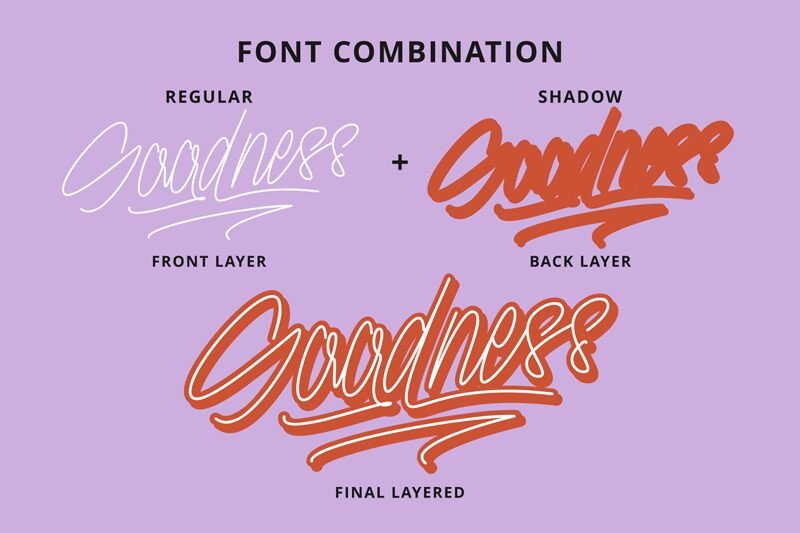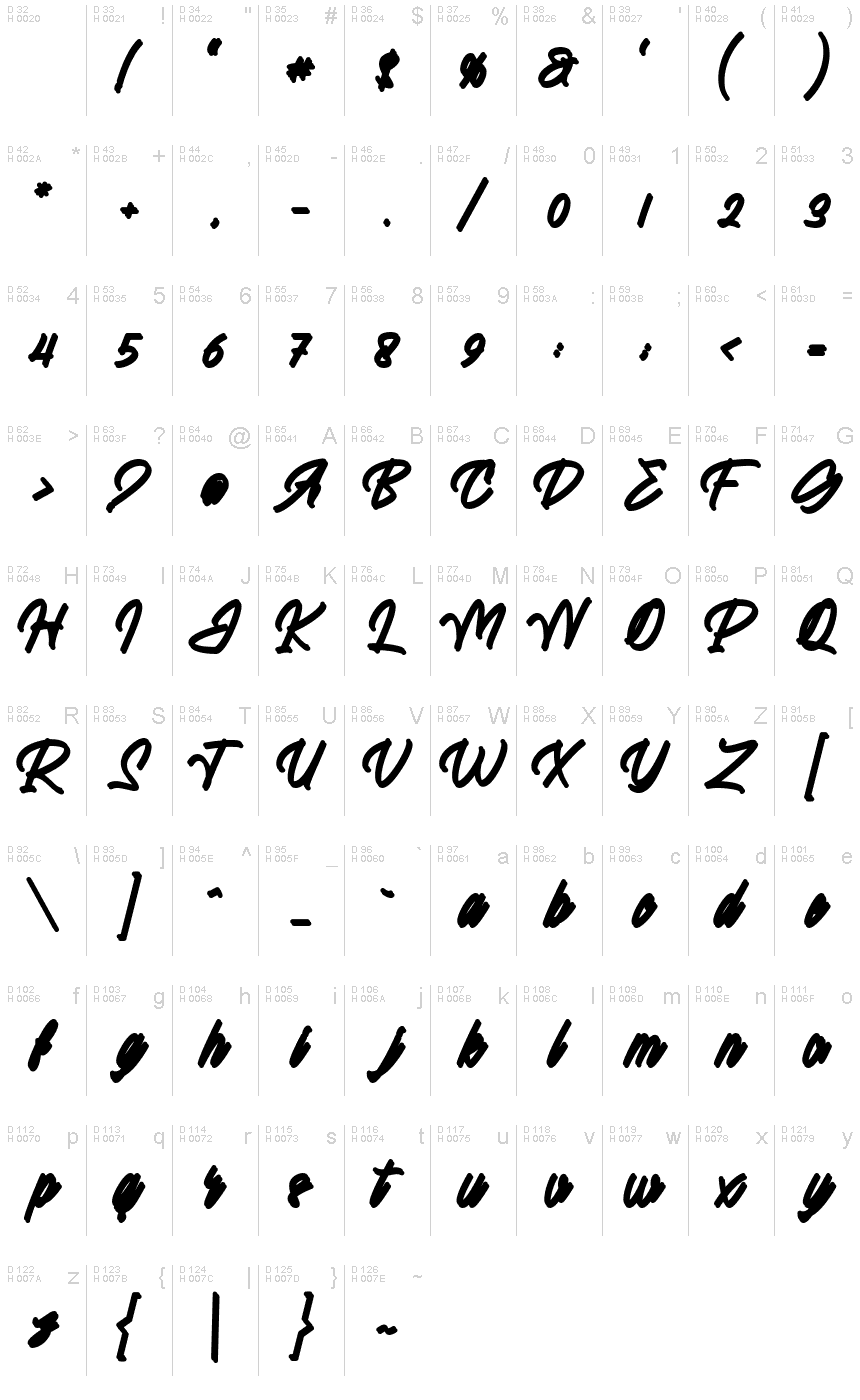
Grace Moretza Shadow
Grace Moretza Shadow is a captivating handwritten font from the esteemed Mabhal Studio. With its semi-light weight, this font exudes elegance and sophistication. Its delicate curves and charmingly irregular letterforms make it perfect for a range of creative projects. Whether you're designing wedding invitations, crafting personalized logos, or creating stunning social media graphics, Grace Moretza Shadow adds a touch of whimsy and grace to any composition. Let your imagination run wild as you explore the versatility of this unique typeface that effortlessly combines modernity with timeless beauty.